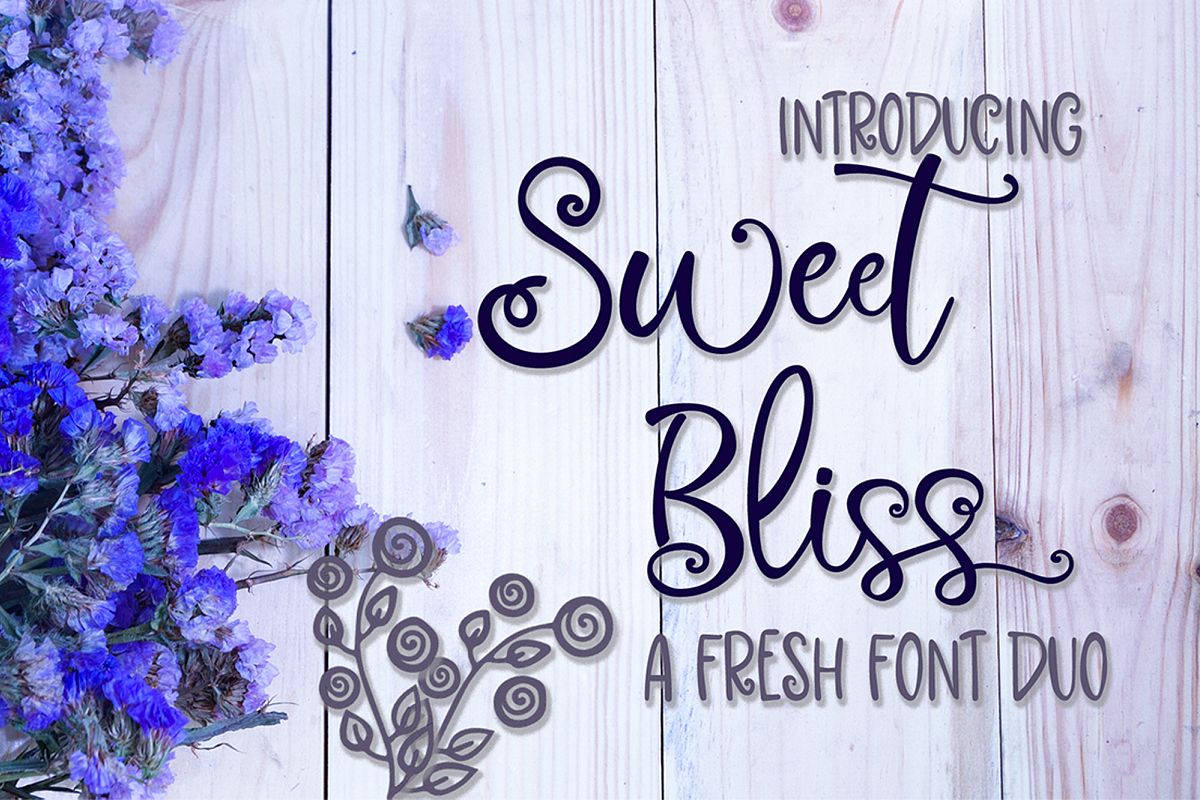
Sweet Bliss Font Duo
SweetBliss-Serif
SweetBliss-Script
I’m super excited to share this new, delicate and fun font Duo Sweet Bliss! Sweet Bliss comes in 2 type versions – Script and Serif.
It’s a fresh touch to invitations, thank you notes, logos, stationary and much, much more.
Sweet Bliss features:
• end contextual alternates for lowercase letters
• 11 standard ligatures
• 6 discretionary ligatures
• multi language support
• uppercase, lowercase letters, numeral, punctuation and symbols